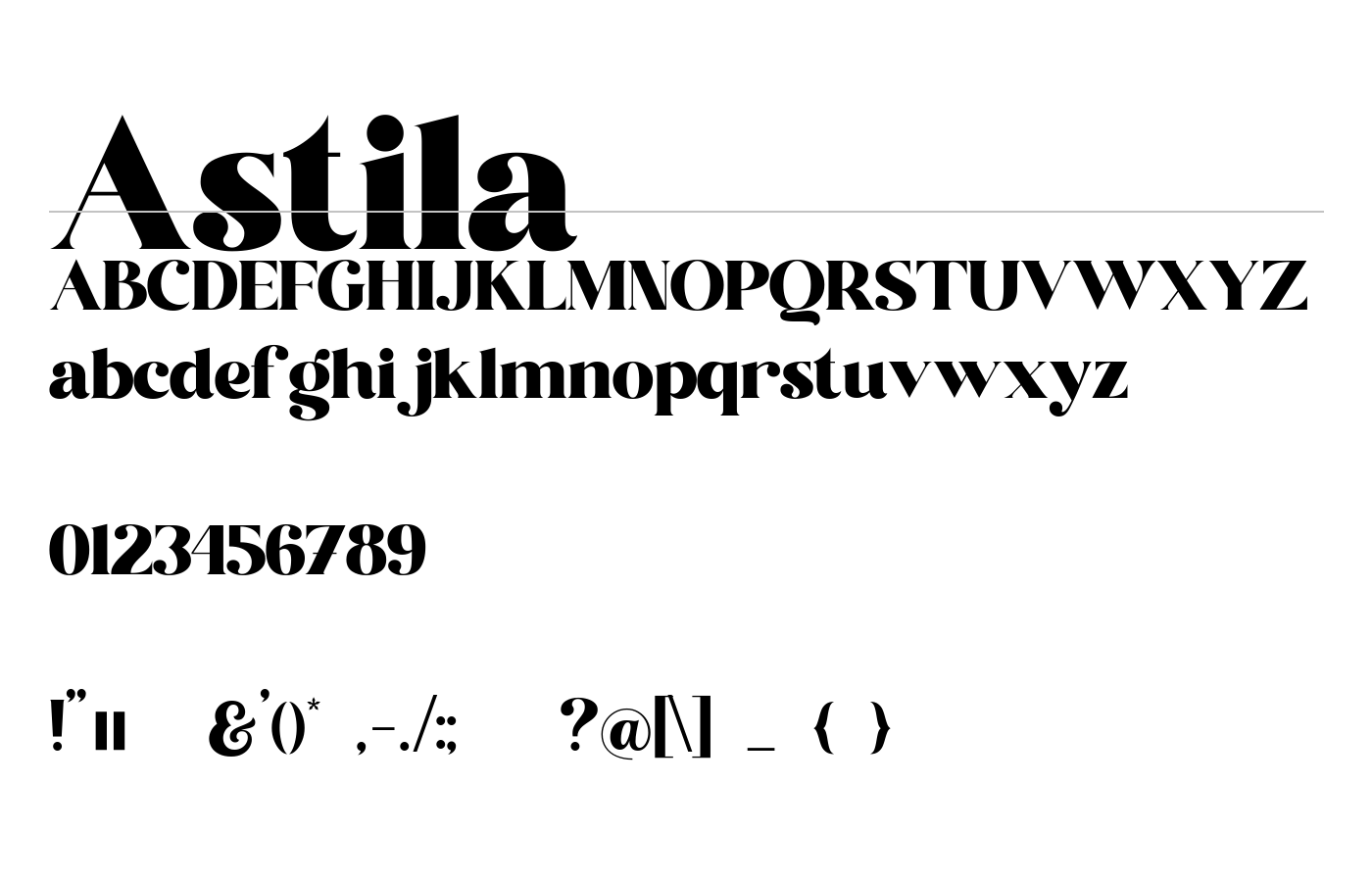
Astila is a bold, modern Didone serif font with high contrast between thick and thin strokes, featuring elegant bracketed serifs and distinctive sharp terminals. Its strong presence and refined style make it perfect for luxury branding, editorial headlines, and sophisticated logo designs. This font blends classic elegance with contemporary flair, ideal for creating a stylish and memorable impression.
Astila Font
About Astila Font